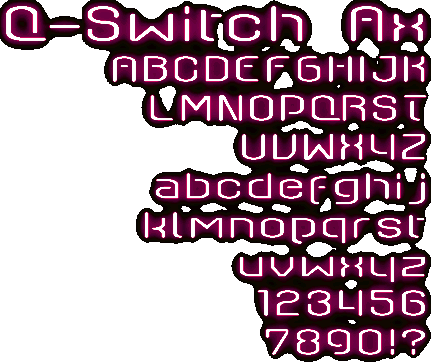
This is the older relative of Axaxax and it has European characters.
Yeah, I know it's a light version of Axaxax, but I needed another font that starts with Q.